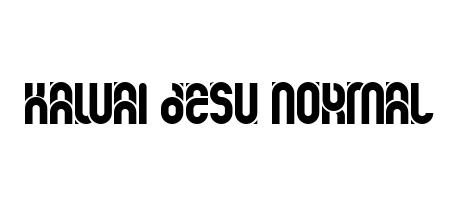
Kawai Desu
By BC
Kawaii Desu Normal is a bold, playful display typeface. Its rounded, interconnected letterforms create a sense of cohesiveness and sweetness, hinting at its "kawaii" (cute) descriptor. The thick strokes and slight variations in letter width give it a retro, almost 70s vibe, balancing the cuteness with a touch of vintage coolness. The overall style is friendly and approachable.